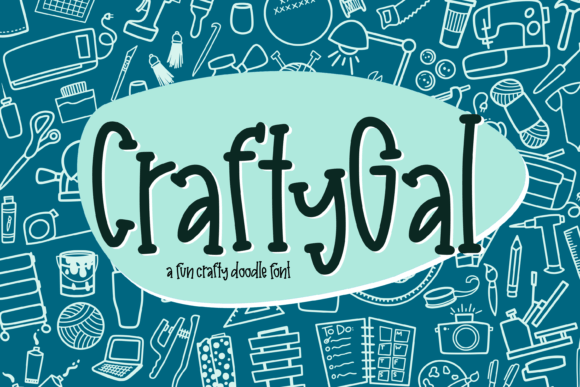
Introducing the Crafty Gal Font – the best font for craft beer enthusiasts! Created by Kitaleigh LLC, this dingbat font family is an absolute must-have for all craft lovers out there. If you want to elevate your crafting game, Crafty Gal is the way to go!
Crafty Gal Font offers a wide range of eye-catching and playful designs that will make your craft labels pop. This font duo is the perfect addition to any crafting project, from labeling your jars of homemade honey to decorating your handmade soap packaging.
What sets the Crafty Gal Font apart is its unique set of crafty doodles. With an array of designs that include needles, spools, scissors, and even a pint of beer, you can add that extra touch of creativity to all your labeling projects.
The witty and playful tone of this font is perfect for expressing your fun and creative side. It adds a touch of personality to your crafts, making them stand out and catch the eye of anyone who sees them.
Crafty Gal Font is versatile, easy to use, and comes with a range of emotive designs that will make you fall in love with it even more. Whether you're a professional crafter or just starting out, this font is an excellent choice to take your creations to the next level.